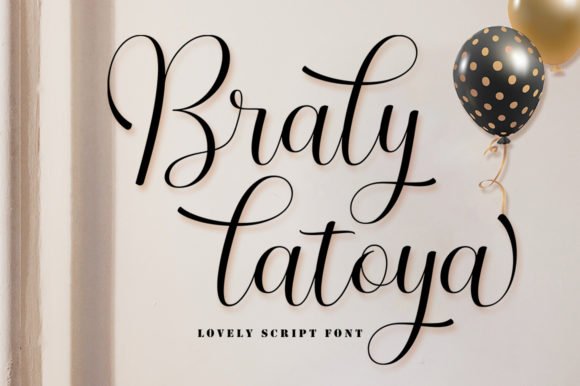
The Perfect Brushstroke: Unveiling the Braly Latoya Font
There’s something magical about the moment when a font comes together, and the letters seem to dance across the page. For designers, this moment is a labor of love – a fusion of creativity, precision, and passion. It’s the thrill of bringing a vision to life, and Braly Latoya Font is the perfect embodiment of this magic.
Braly Latoya Font is a delicate and elegant handwritten font, designed to add a touch of sophistication to any project. Its well-rounded letters and distinctive flair make it a standout choice for designers seeking to create unique and captivating visual experiences. With its PUA encoding, accessing the full range of glyphs and swashes is effortless, giving designers the freedom to experiment and push the boundaries of their creativity.
Braly Latoya Font Key Features
- Character Set: This font features a comprehensive character set, including Latin, Cyrillic, and Greek alphabets, as well as various punctuation marks and symbols.
- Unique Characteristics: This font boasts a unique, modern design with a blend of geometric and organic elements, making it an excellent choice for creative and artistic projects.
- Font Weight and Style: This font comes in various weights and styles, including light, regular, bold, and italic, allowing users to customize the look and feel of their text to suit their needs.
Braly Latoya Font Review
As a designer, I was excited to dive into the Braly Latoya Font. Overall, I have mixed feelings about this font.
- ✨ Unique and elegant design: The Braly Latoya Font has a distinctive flair that makes it stand out from other fonts. Its mix of classic and modern elements makes it perfect for a wide range of projects.
- ✨ Versatile: This font is suitable for both body text and headings, making it a great choice for designers who need a versatile font that can adapt to different contexts.
- ✨ High-quality: The font is well-designed and polished, with clear and crisp lines that make it easy to read.
- ⚠️ Limited character set: While the font has a wide range of characters, it lacks some of the more unusual characters that designers often need.
- ⚠️ May not be suitable for small text: Due to its elegant design, the font can become difficult to read when used in small sizes.
The Braly Latoya Font is a solid choice for designers who need a unique and versatile font. While it has some limitations, its elegant design and high-quality rendering make it a great option for a wide range of projects. With some careful planning and use, this font can add a touch of sophistication and style to any design.
The Braly Latoya Font is a versatile and elegant font that can be used in various design applications. To get the most out of it, follow these steps:
Use the Braly Latoya Font to create elegant and sophisticated designs.
Experiment with different font sizes and styles to add visual interest.
Pair the Braly Latoya Font with other elegant fonts for a cohesive look.
Business cards and marketing materials
Editorial and literary publications